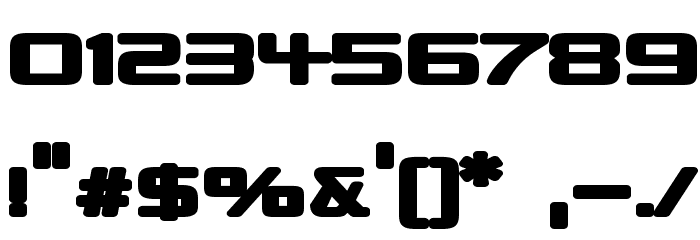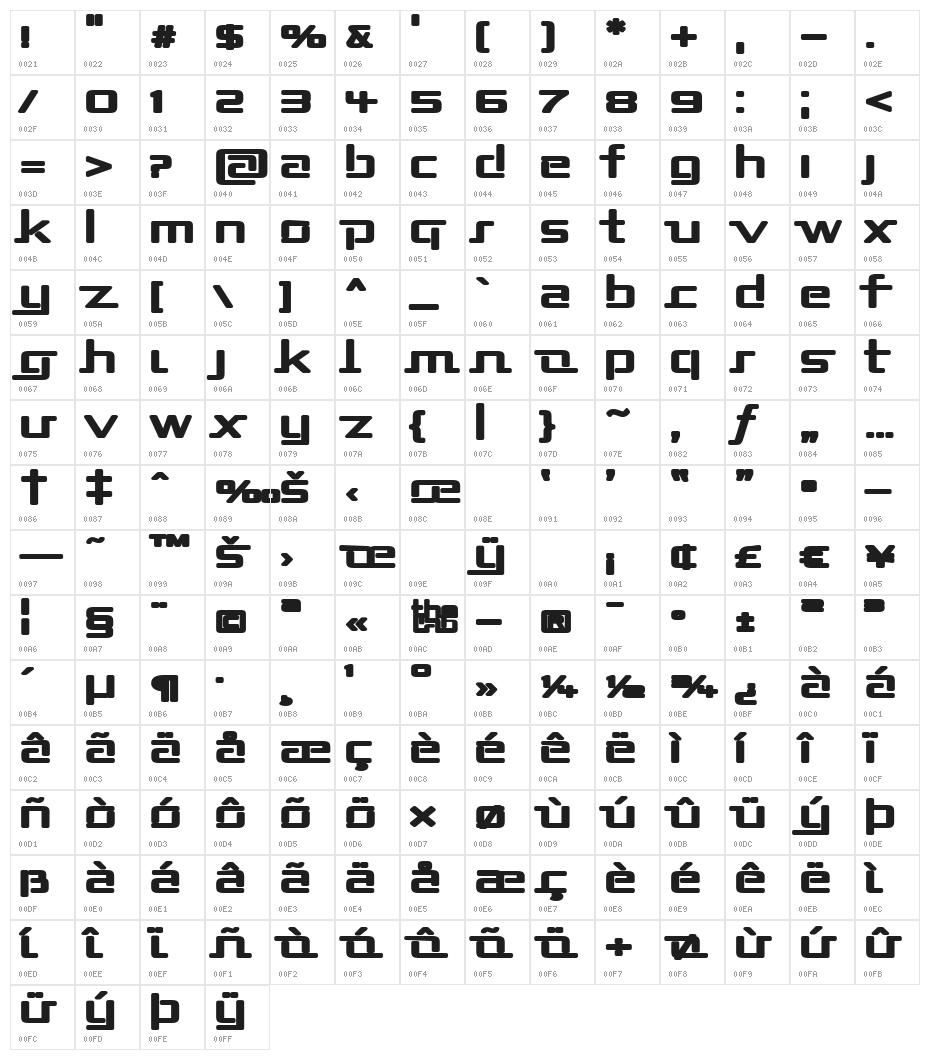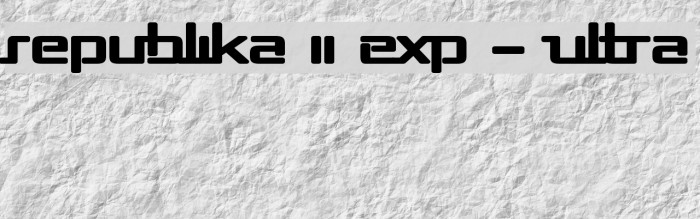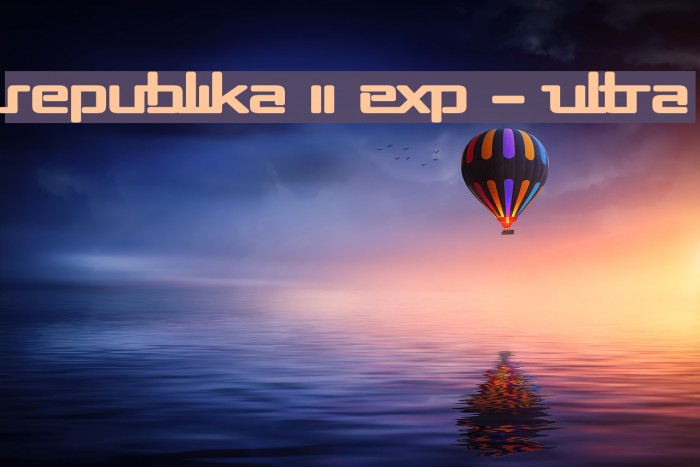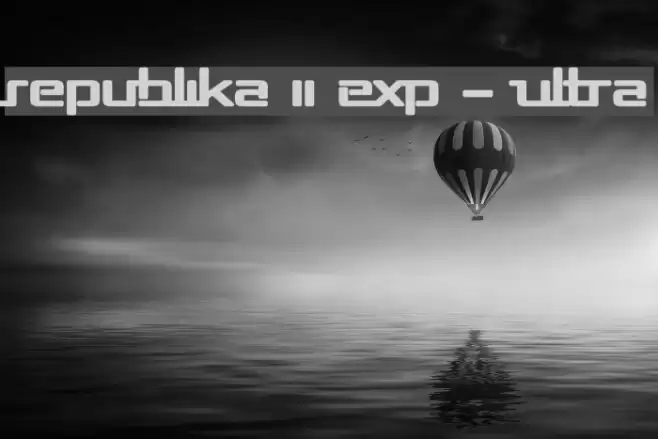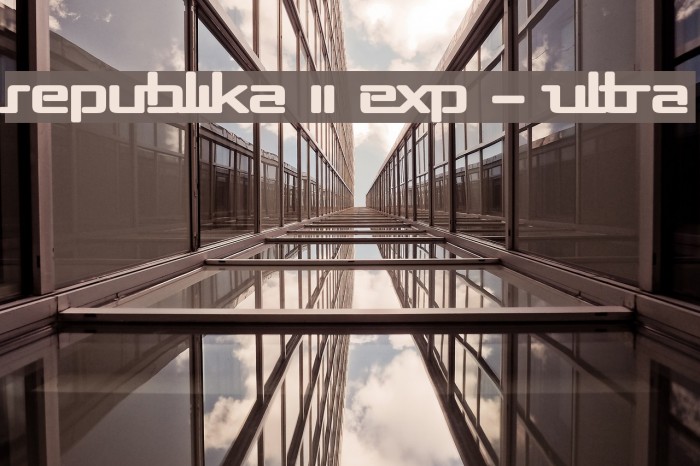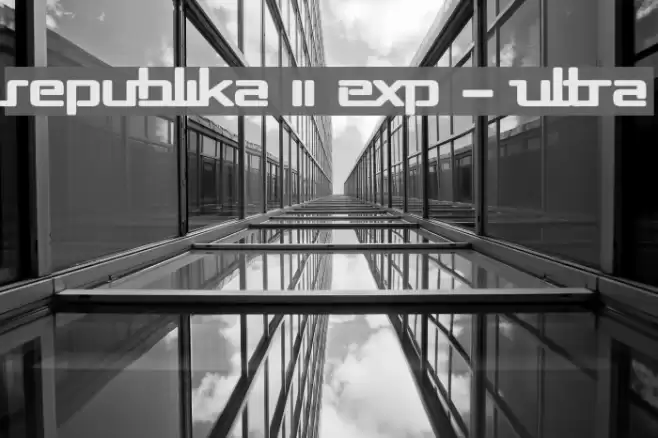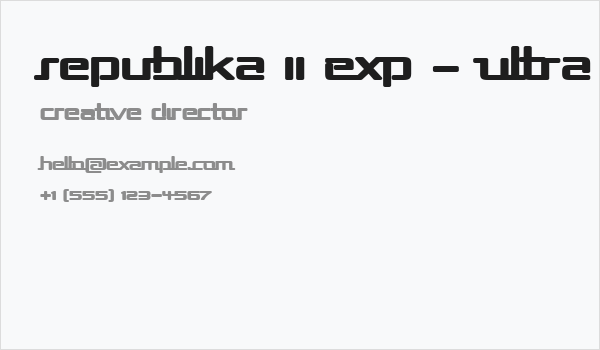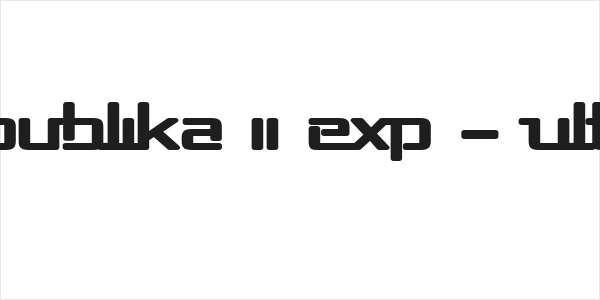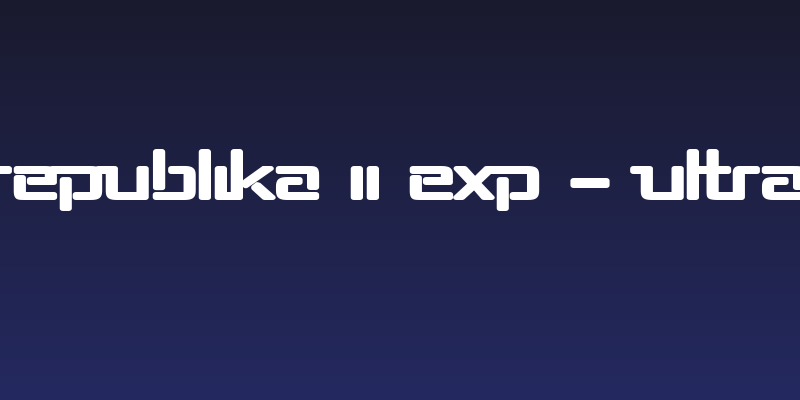
Republika II Exp - Ultra Font
Republika II Exp - Ultra Description
This font features a bold, futuristic design with a geometric structure. The characters are constructed with uniform stroke widths, creating a cohesive and modern appearance. The rounded corners soften the otherwise rigid and technical aesthetic, making it suitable for both digital and print media. Its unique style is characterized by a blend of straight lines and curves, giving it a distinctive and memorable look. The font maintains a consistent baseline and x-height, ensuring readability while preserving its decorative elements. It is particularly effective in capturing attention due to its bold presence and striking design.